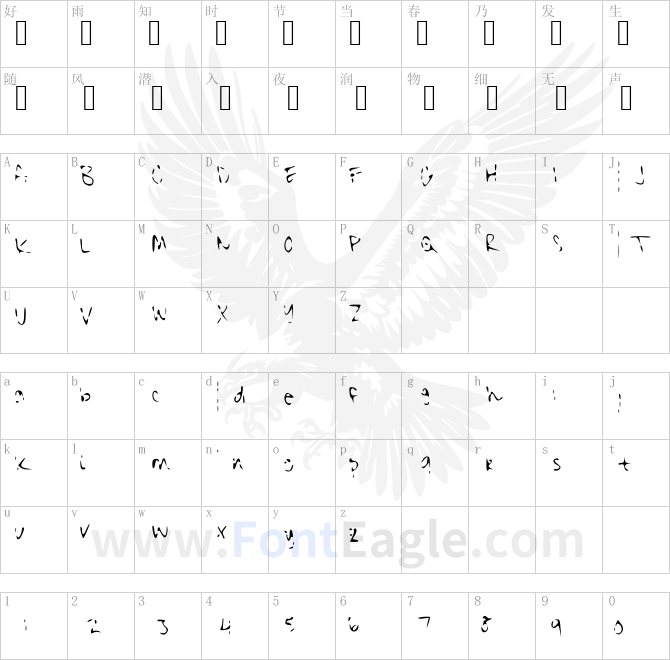
Julia is a great font, widely used in graphic design, single-page menu design, poster design and other fields, and is deeply loved by designers.Julia download.